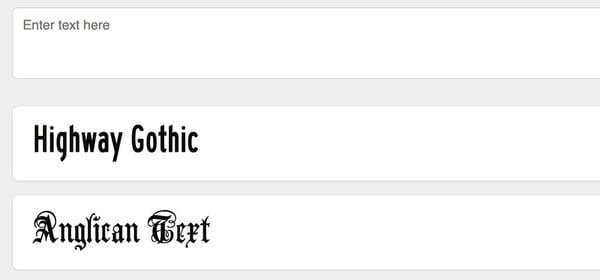
The Gothic Font Generator is an online tool that converts regular text into ornate Gothic-style lettering. Users can create visually striking text with a medieval aesthetic, suitable for social media posts, digital art, logos, or personal projects. The platform operates entirely in the browser, offering an intuitive interface that allows instant preview and copying of the generated text without the need for additional software or design expertise.
By automating the process of crafting Gothic fonts, the tool enables users to enhance their content with a distinctive, historical look. It caters to creatives, marketers, and hobbyists seeking to add stylistic flair to text, providing a convenient and accessible solution for generating elaborate Gothic lettering for both digital and print applications.
Gothic Font Generator Transforms Text Into Elegant Gothic Styles